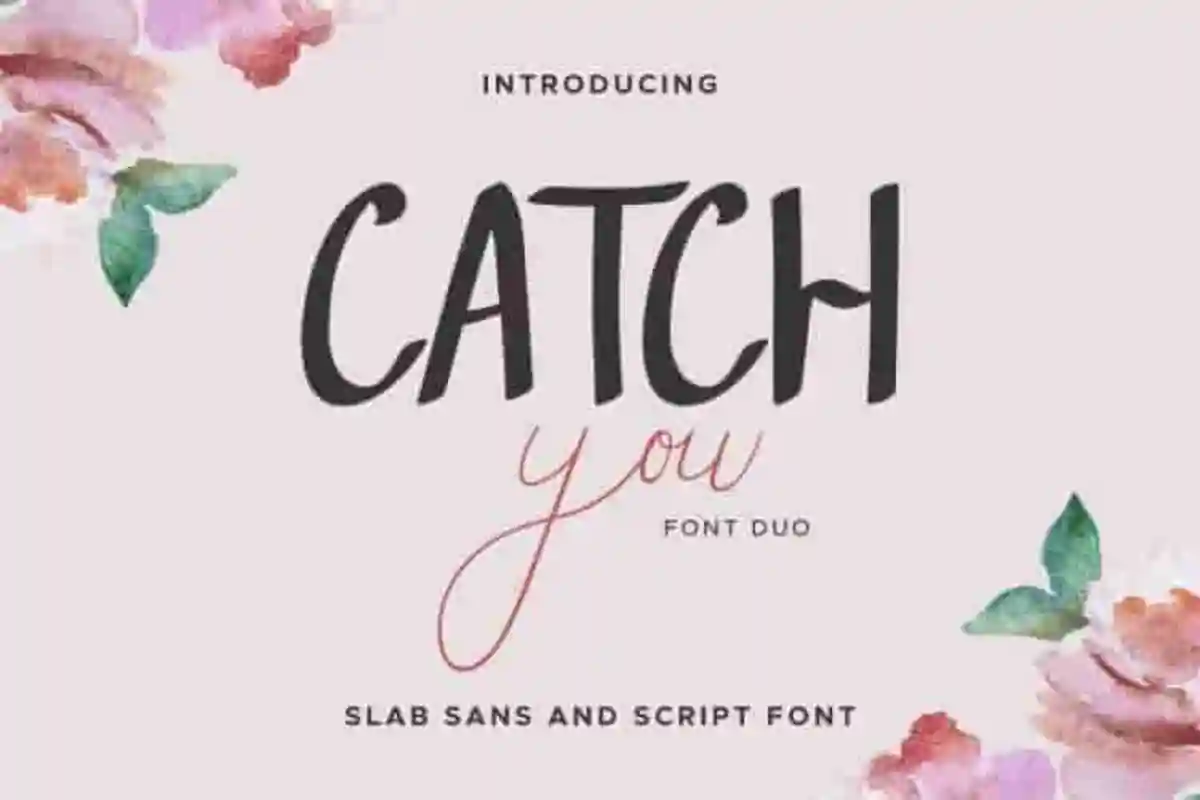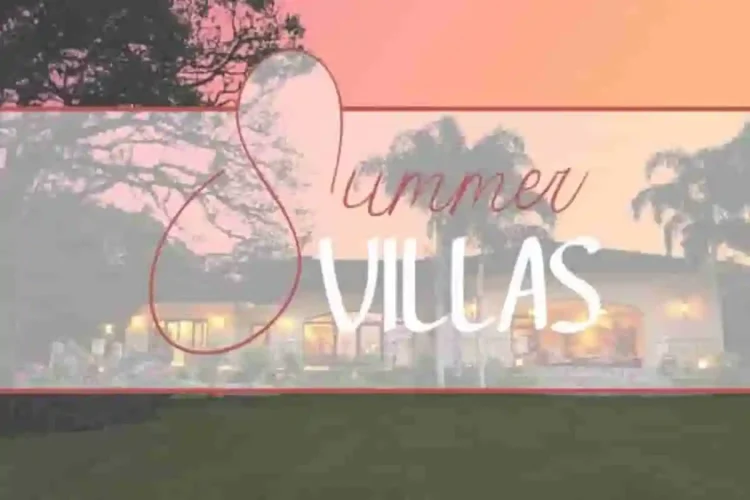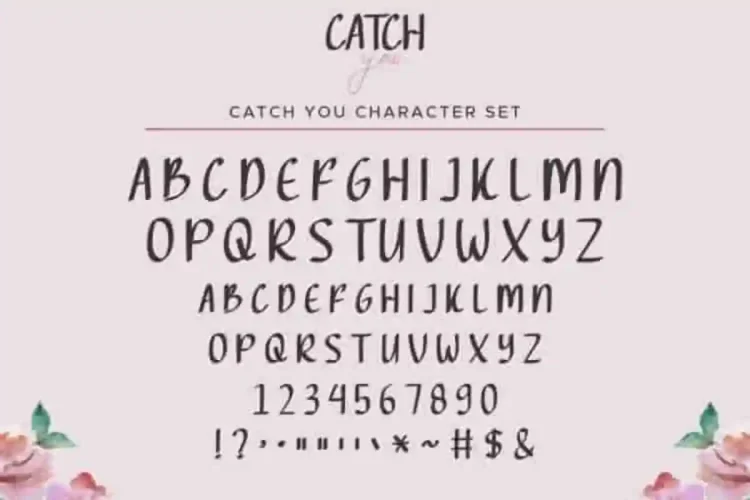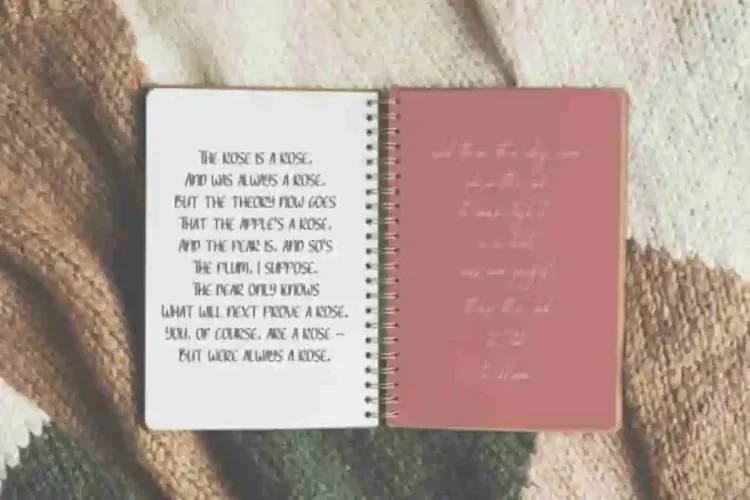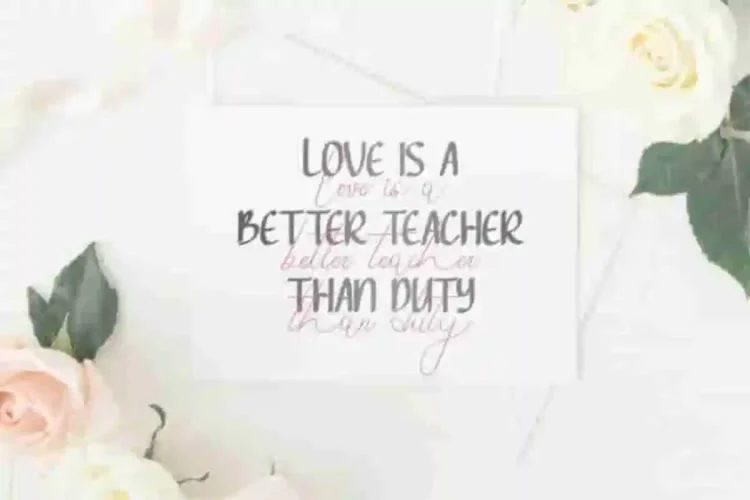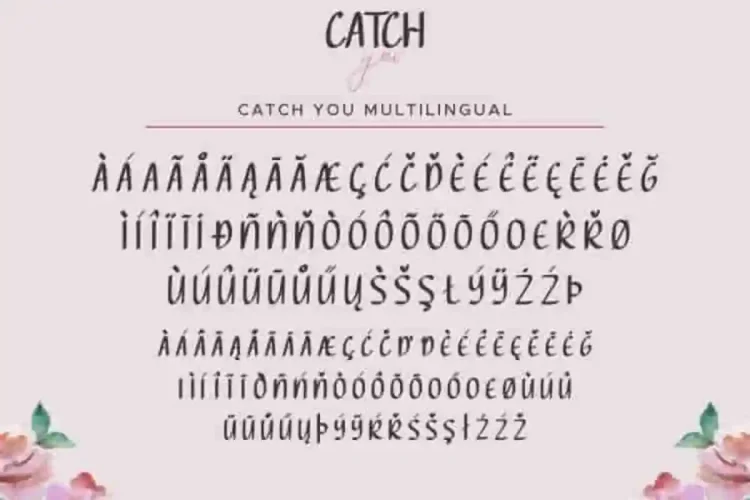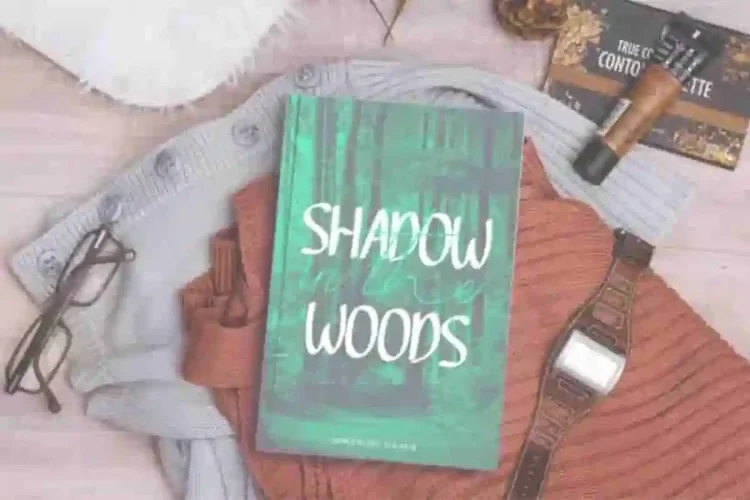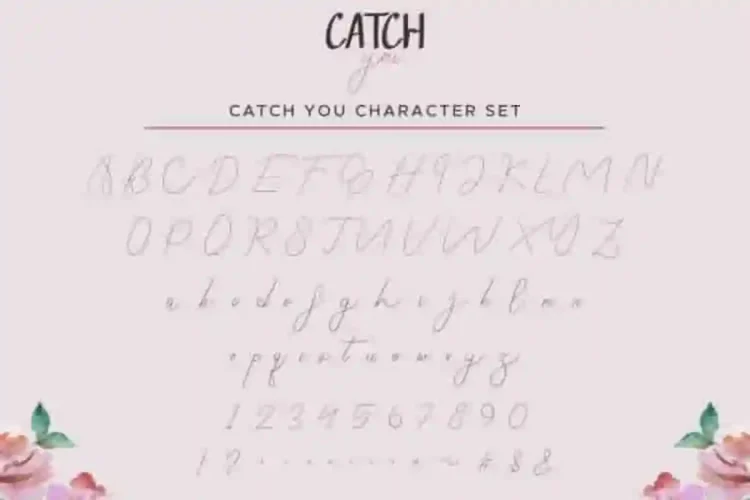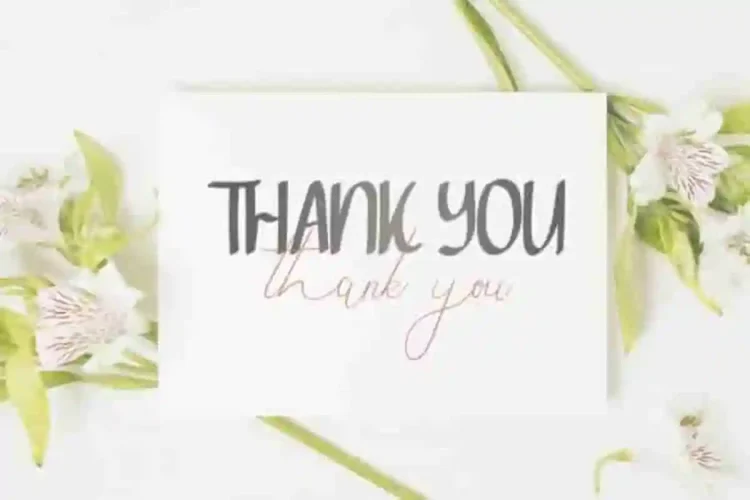
Catch You Handwritting Font Duo
Catch You Handwritting Font Duo is a font family with two unique styles. It was handcrafted from our Studio here in, Indonesia. The designers of these fonts are Ali, Yasri and Sarah.
Catch You Handwritting Font Duo comes with two different styles : Brush handwriting and signature font.Each style features elegant, textured, and sophisticated characters with a classic calligraphic touch. It has a stunning characters set, perfectly managed with well spaced and kerning.